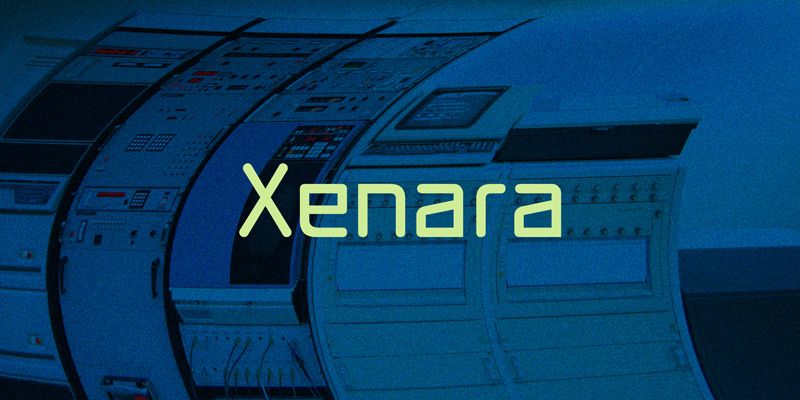
Xenara
rounded
Xenara is a technical font with rounded ends inspired by 1970s calculator keys and electric typewriters. Xenara contains alternate barless A, trident M, zigzag E and square S.